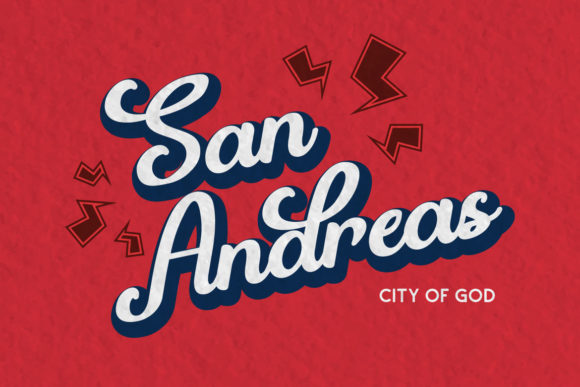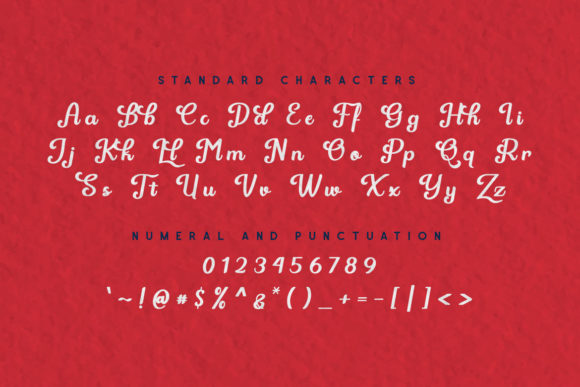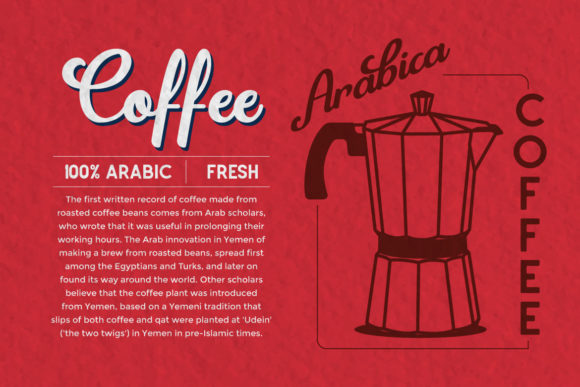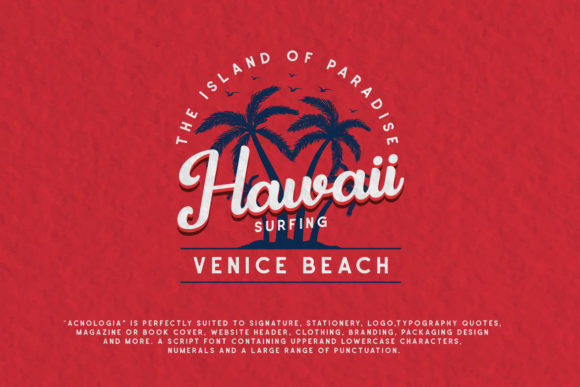
Introduction to Acnologia Font
Acnogolia is a unique script font.
It has a retro look and feel that will take your projects to the next level .
Key Features of Acnologia Font